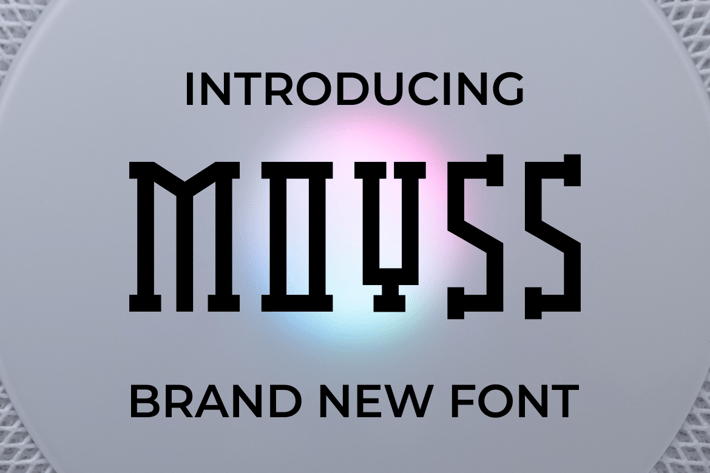
MOYSS Font
Introducing our new product MOYSS Font - Modern Font
MOYSS Font - Modern Font is a bold and authentic display font. The font is suitable for any branding project like logo, t-shirt printing, esport, and many more. outstanding in a wide range of contexts.